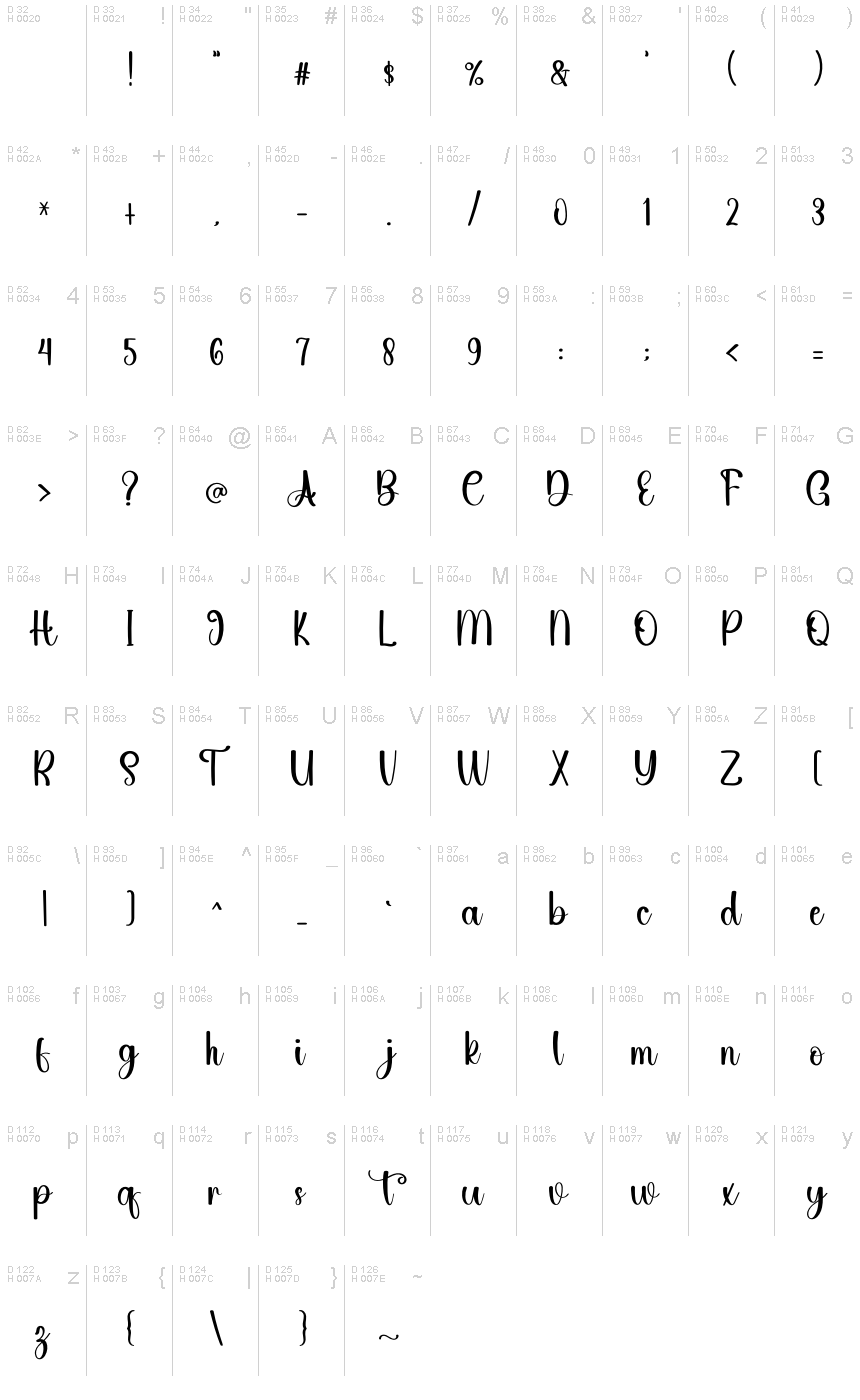
Daily Script
Daily Script, a captivating calligraphic font designed by PiPi Creative, exudes a graceful elegance that immediately captivates the eye. This flowing, handwritten-inspired typeface boasts smooth, continuous strokes that seamlessly transition between thick and thin lines, creating a sense of fluid movement and natural fluidity. The script-like aesthetic, with its subtle variations in letter forms, imbues the text with a refined, artisanal charm, evoking a sense of timelessness and sophistication.
The versatility of Daily Script makes it a versatile choice for a wide range of design applications, from high-end branding and luxury packaging to elegant invitations and editorial layouts. Its calligraphic flair lends itself beautifully to projects that require a touch of sophistication and a sense of personalized elegance, helping to elevate the overall aesthetic and create a lasting impression.